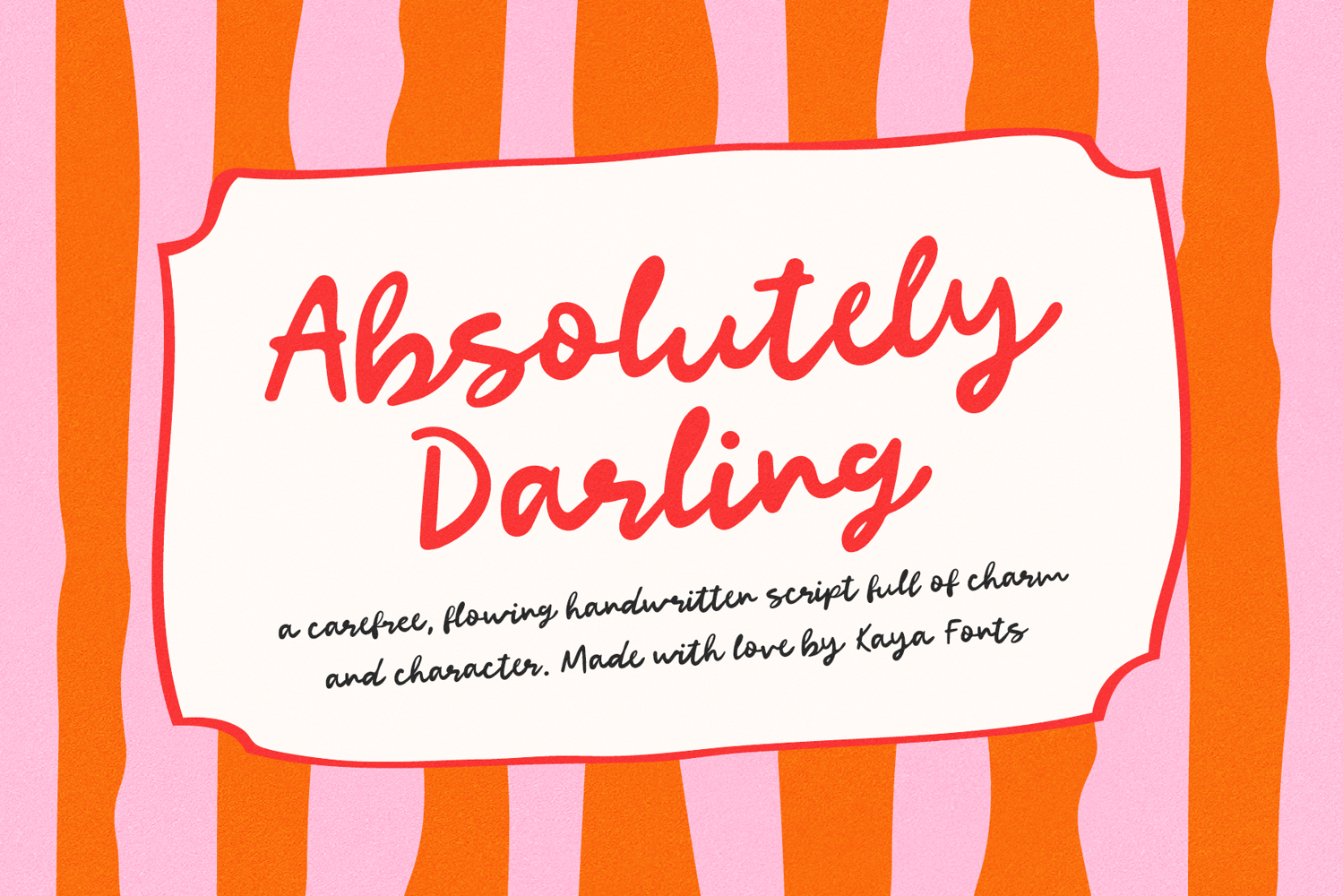
Absolutely Darling Bold Script Font Handwritten Retro Vibes
Absolutely Darling is a bold handwritten script with expressive, imperfect strokes and a free-spirited retro vibe. Every letter feels spontaneous, stylish, and full of creative energy.
Perfect for printing, editorial designs, posters, weddings, branding, logos, DIY designs and more.